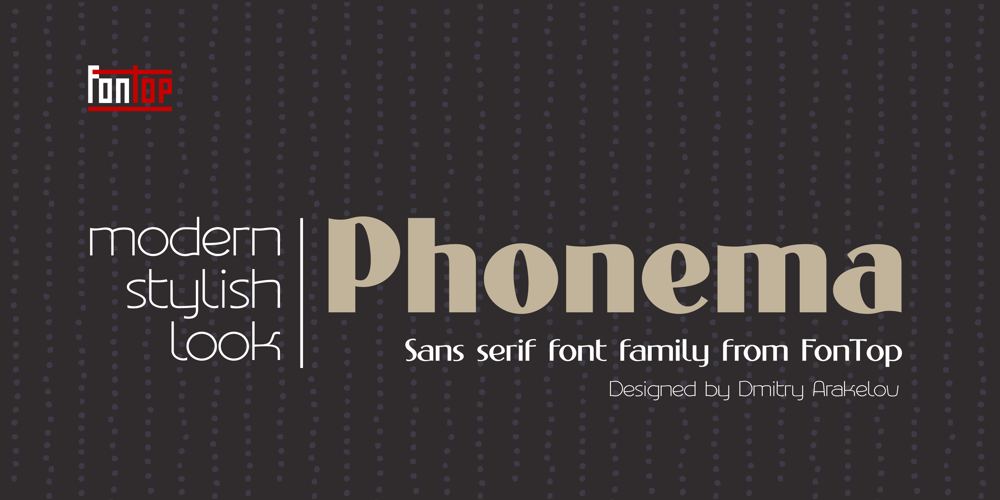
Phonema
Phonema font
Phonema Font Family was designed by Dmitry Arakelov and published by Fontop. Phonema contains 6 styles and family package options. Warm welcome to my new sans serif typeface PHONEMA. Six stylish and modern fonts are included into this type family. Looks great as headlines on posters, text in magazines, presentations. Also can be used in logos and blog posts. Will reinforce your creative work with eye catching and bold message. Each font has Latin multilingual support as well as uppercase letters, lowercase letters, numbers and basic punctuations.